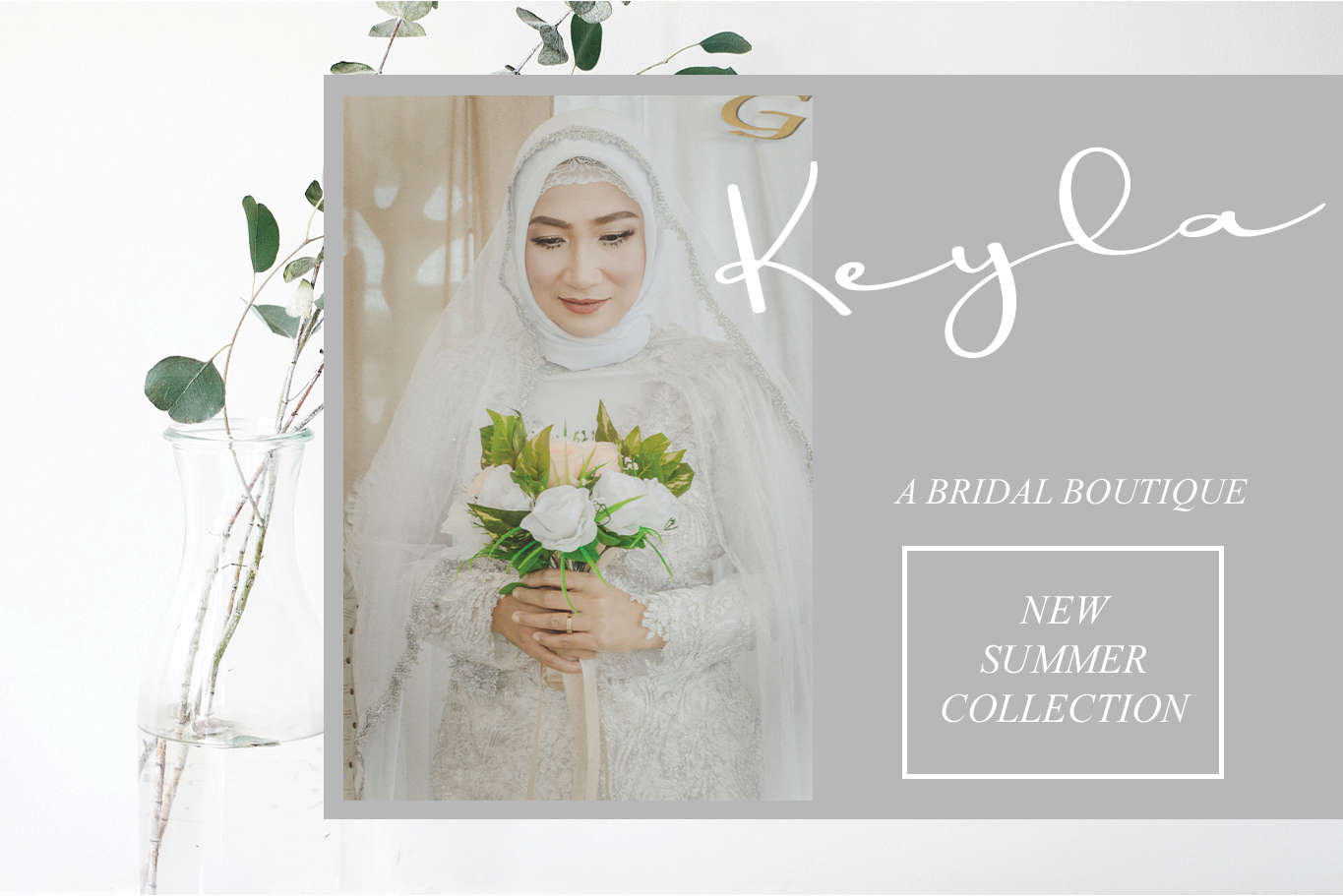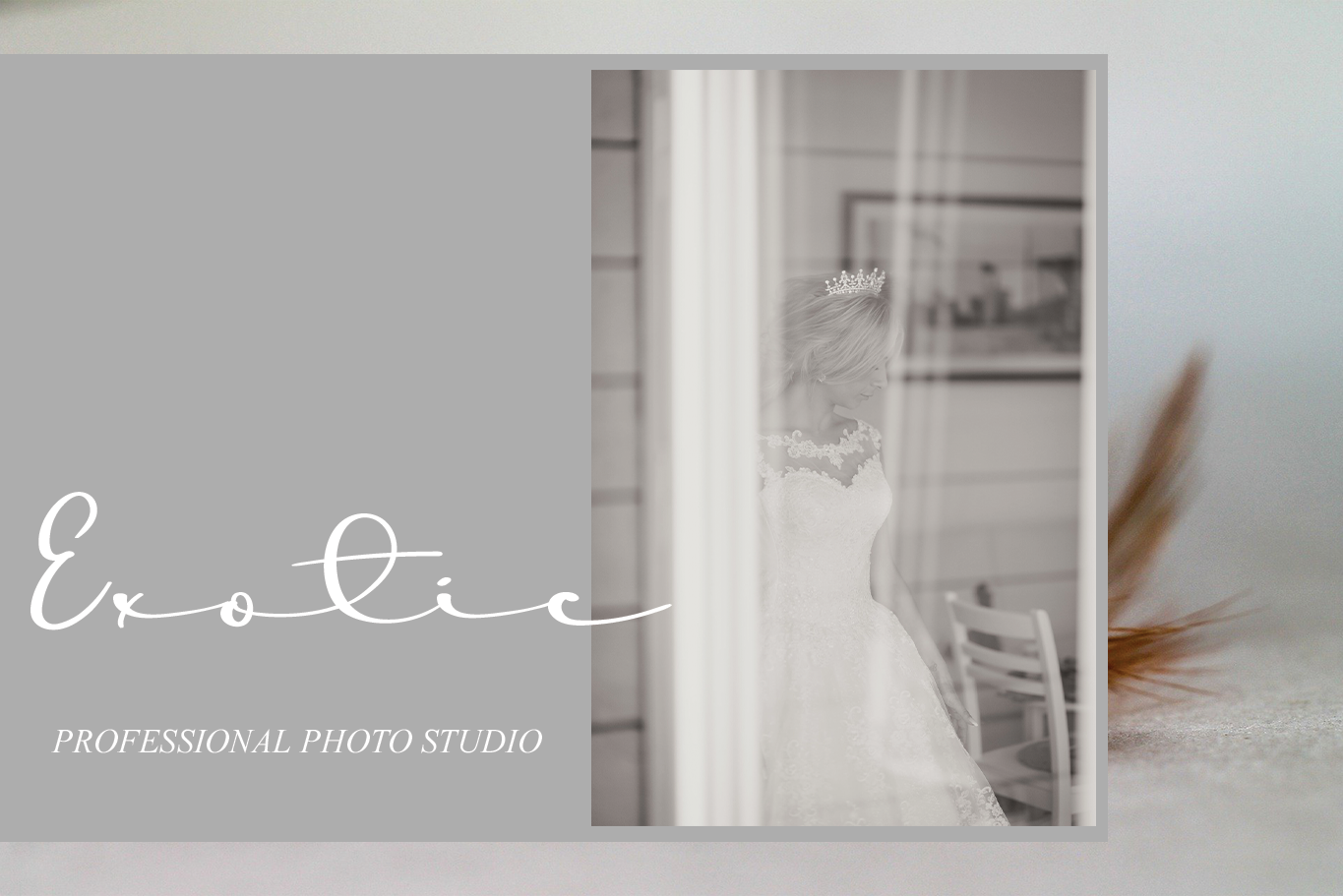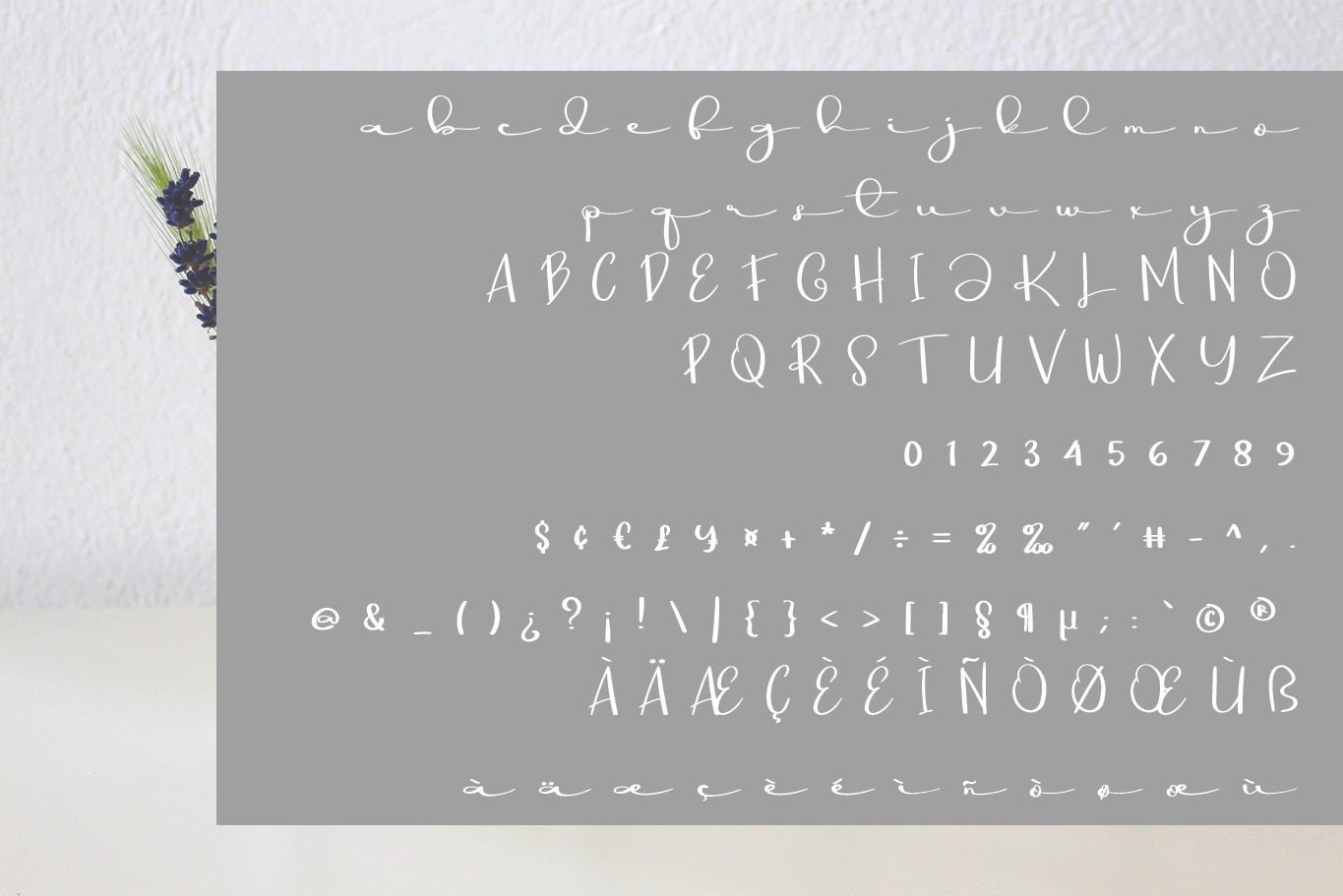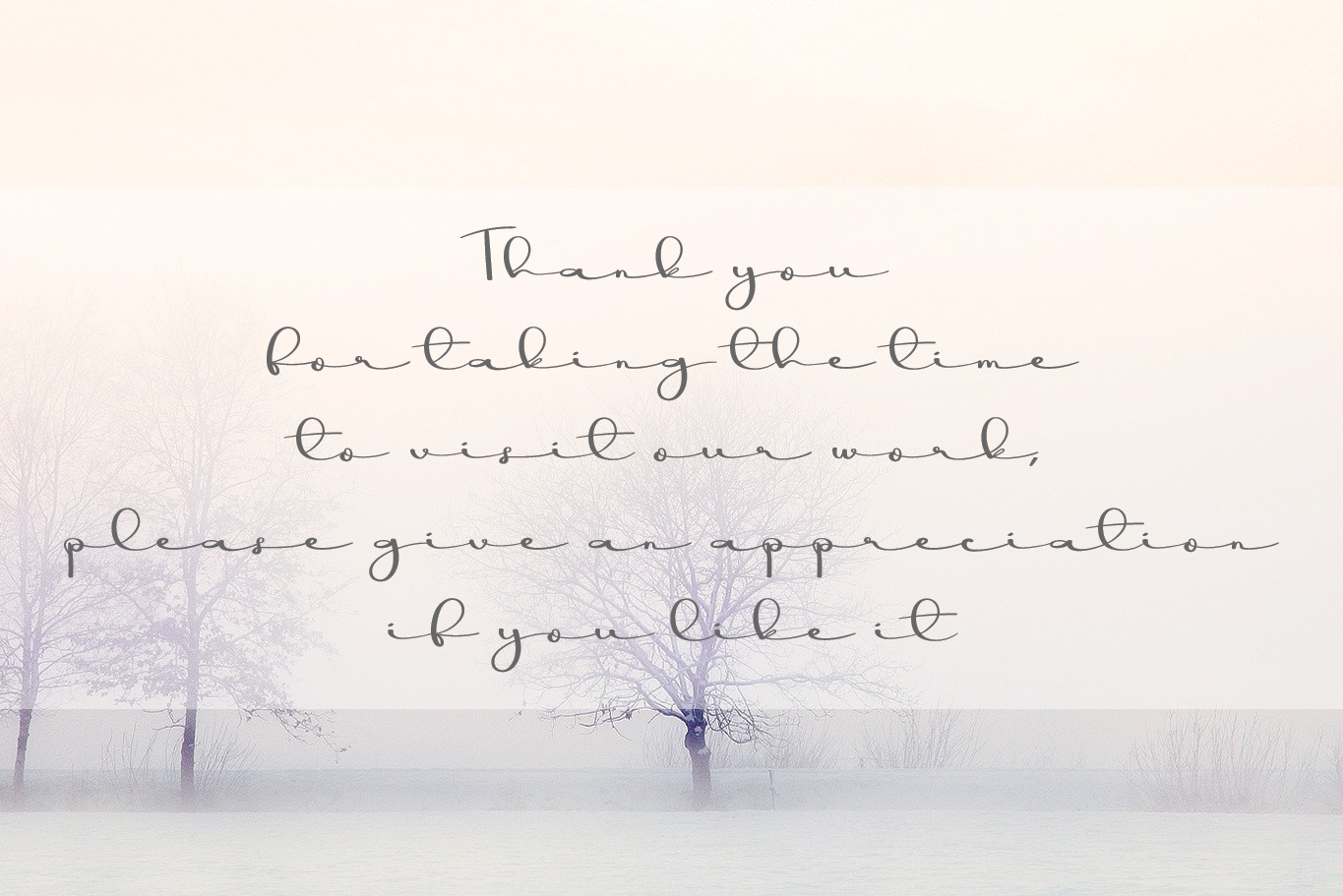
Minimalist Signature Font
Minimalist Signature Script Font
This is a beautiful and refined script font. It has a classy, elegant and modern look that can be used for logos, branding, invitations, stationery, wedding designs, social media posts, and much more!